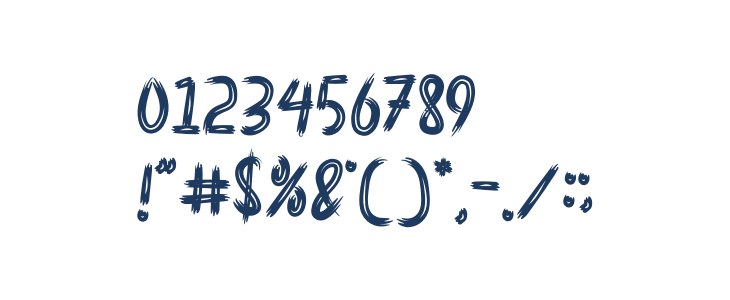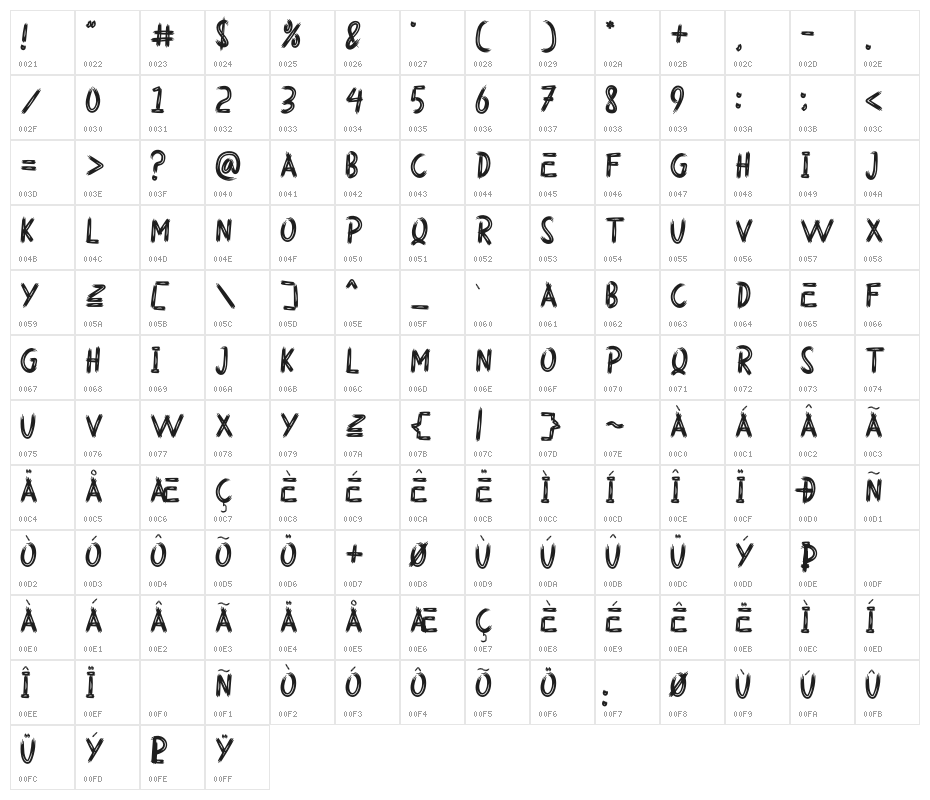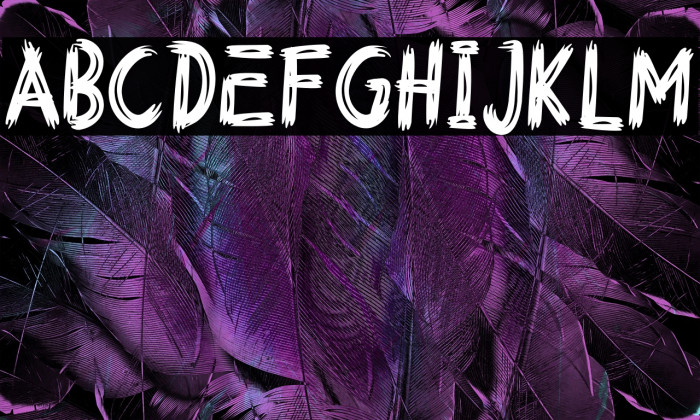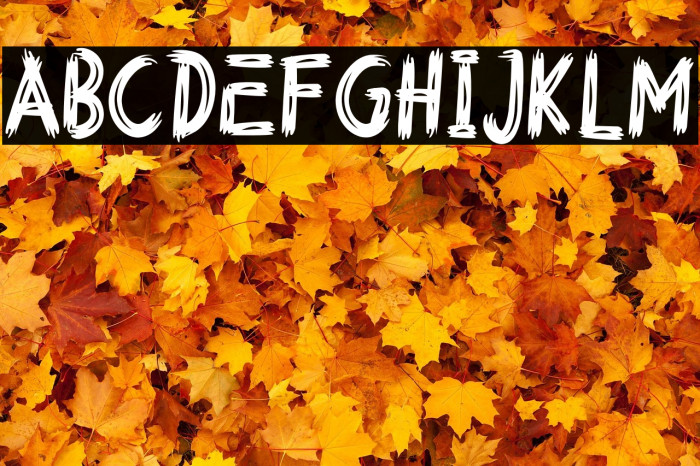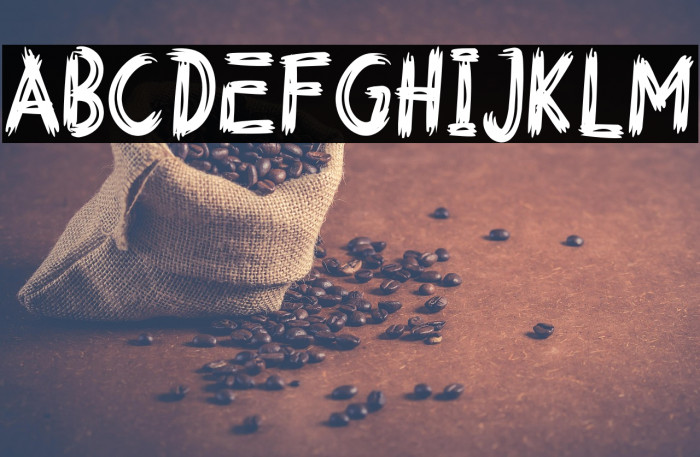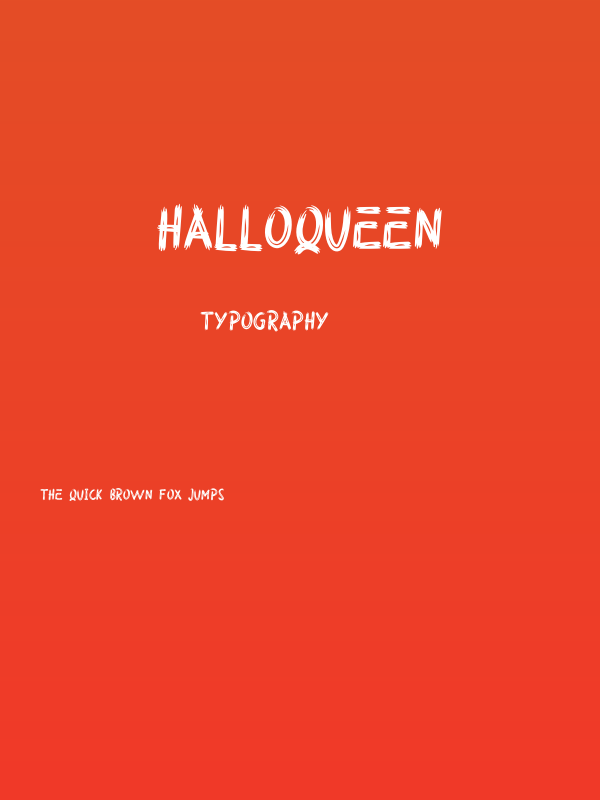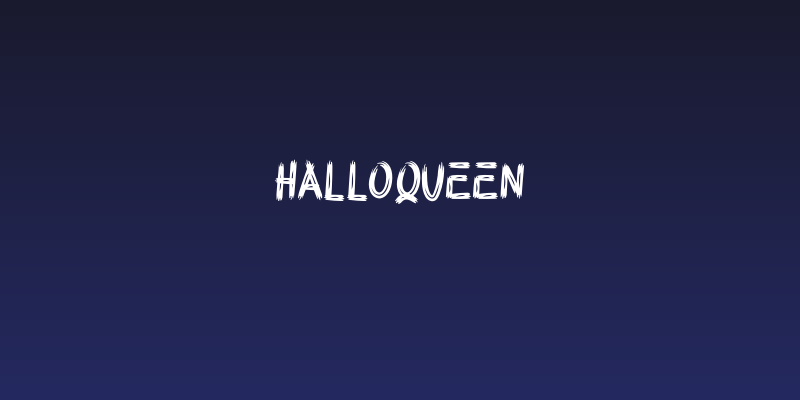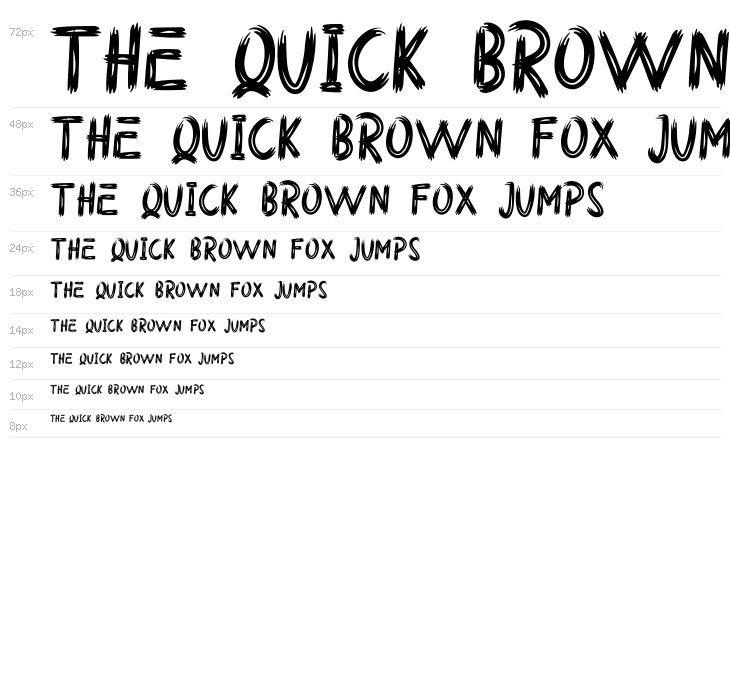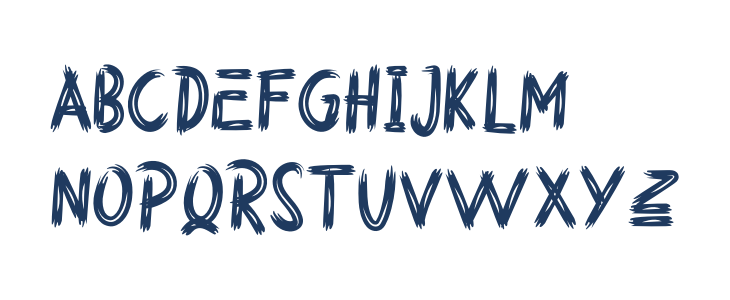
HALLOQUEEN Font
HALLOQUEEN Description
This font features a bold, brushstroke style that exudes an energetic and dynamic feel. The characters are crafted with irregular, jagged edges, giving them a hand-drawn, artistic appearance. The uppercase and lowercase letters maintain a consistent style, with a slightly condensed form that enhances their boldness. Numbers and special characters are equally expressive, maintaining the font's overall aesthetic. This font is perfect for projects that require a dramatic and eye-catching look, such as posters, Halloween-themed designs, or any creative work that benefits from a bold and artistic touch.
| Proposed Projects | Ideal for Halloween-themed designs, posters, artistic projects, and any creative work needing a bold, dramatic touch. |